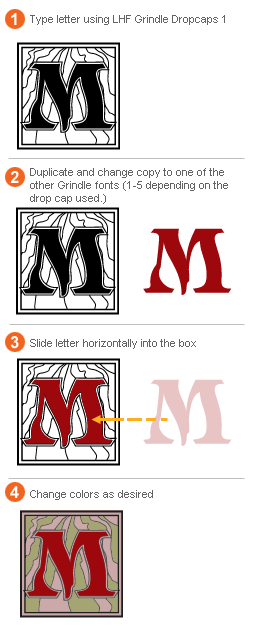
Using LHF Grindle Dropcaps
LHF Grindle
Unique, highly imaginative art nouveau style
from the "Alphonse Mucha" saturated mind of
Dave Parr. 7 versions with free alternate fonts. Includes
Lowercase, Small Caps,
Flourish, Veined, Lilly
Grindle
The first version of Dave Parr's
font set. Grindle Regular version with lowercase.
Grindle
2
Large caps with small caps (no lowercase).
Grindle
3
Large and small caps with small flourishes on the sides of the letters.
Grindle
4
Large caps with
small caps with lines in the letters.
Grindle
5
Large caps with
small caps with lily flowers inside the letters.
Grindle
Dropcaps for the Regular Caps.
Fits all but Flourish Caps. See instructions on left for usage.
Grindle
Dropcaps for the Flourish Caps. Does not fit Regular Caps. See instructions on left for usage.
Grindle
Contains alternate A, T and O as shown above. Click on